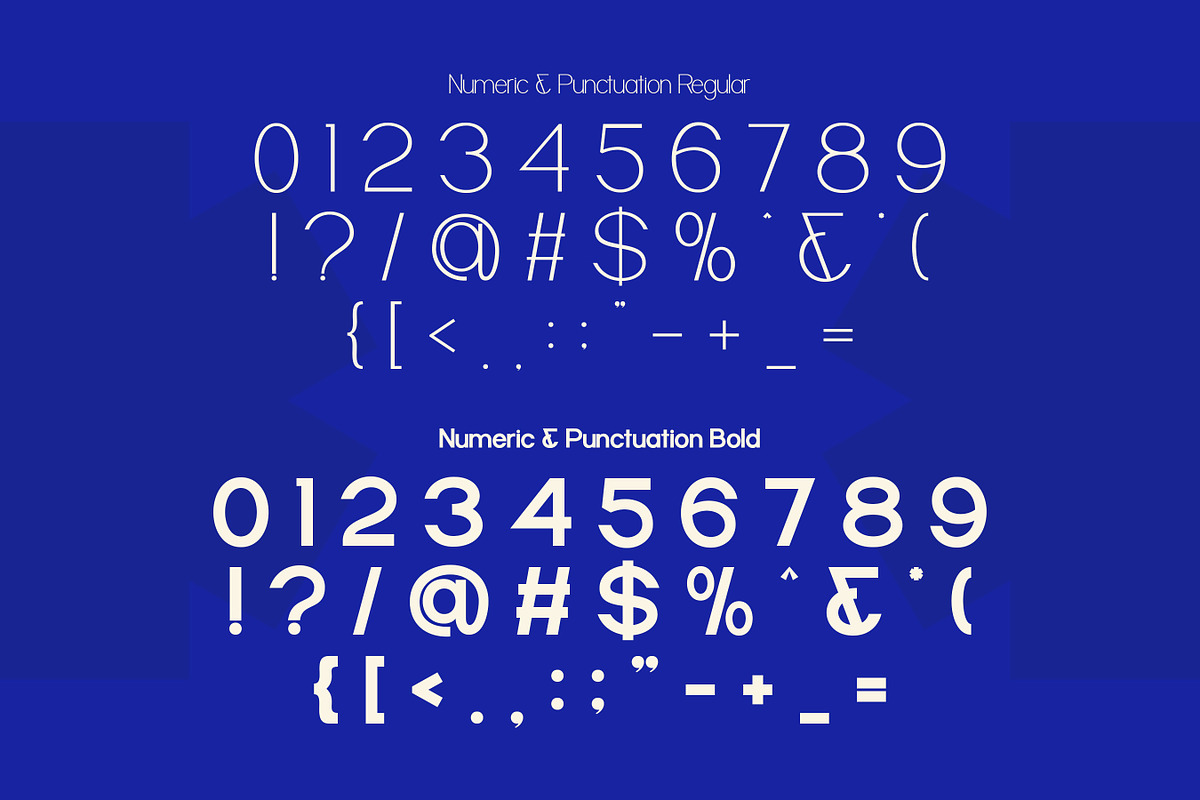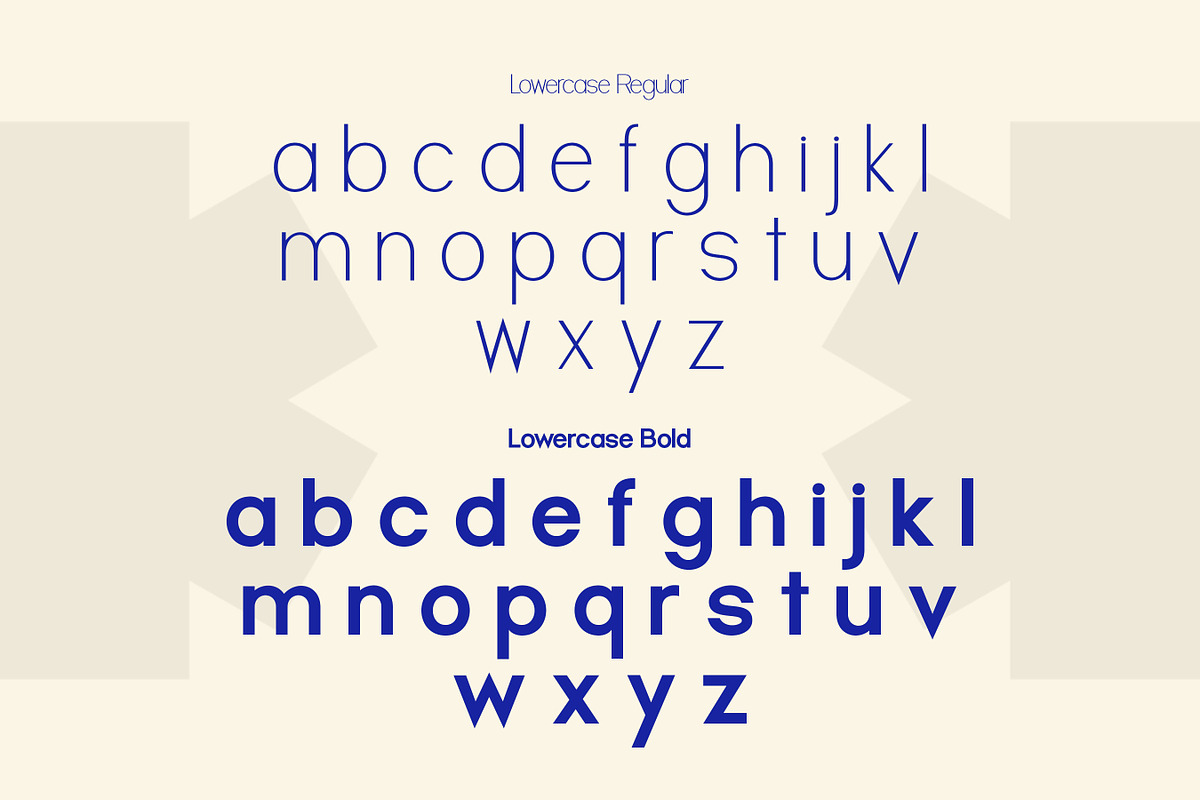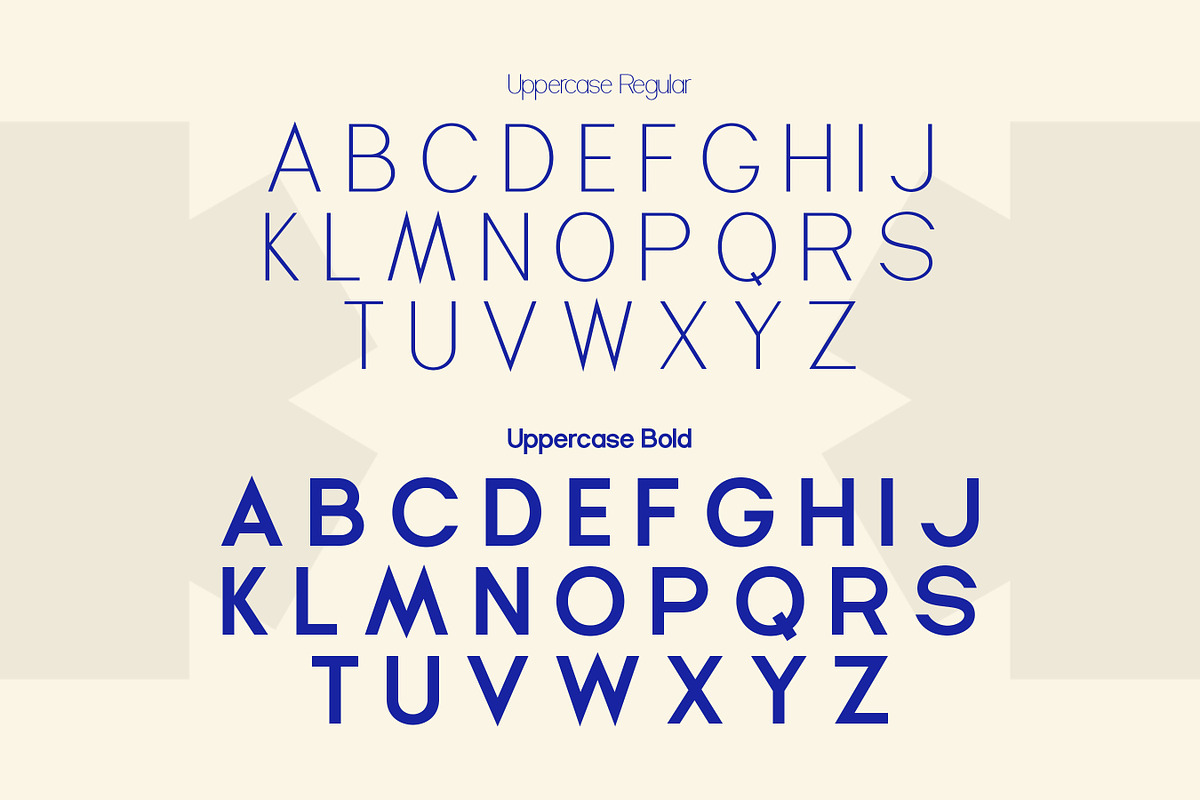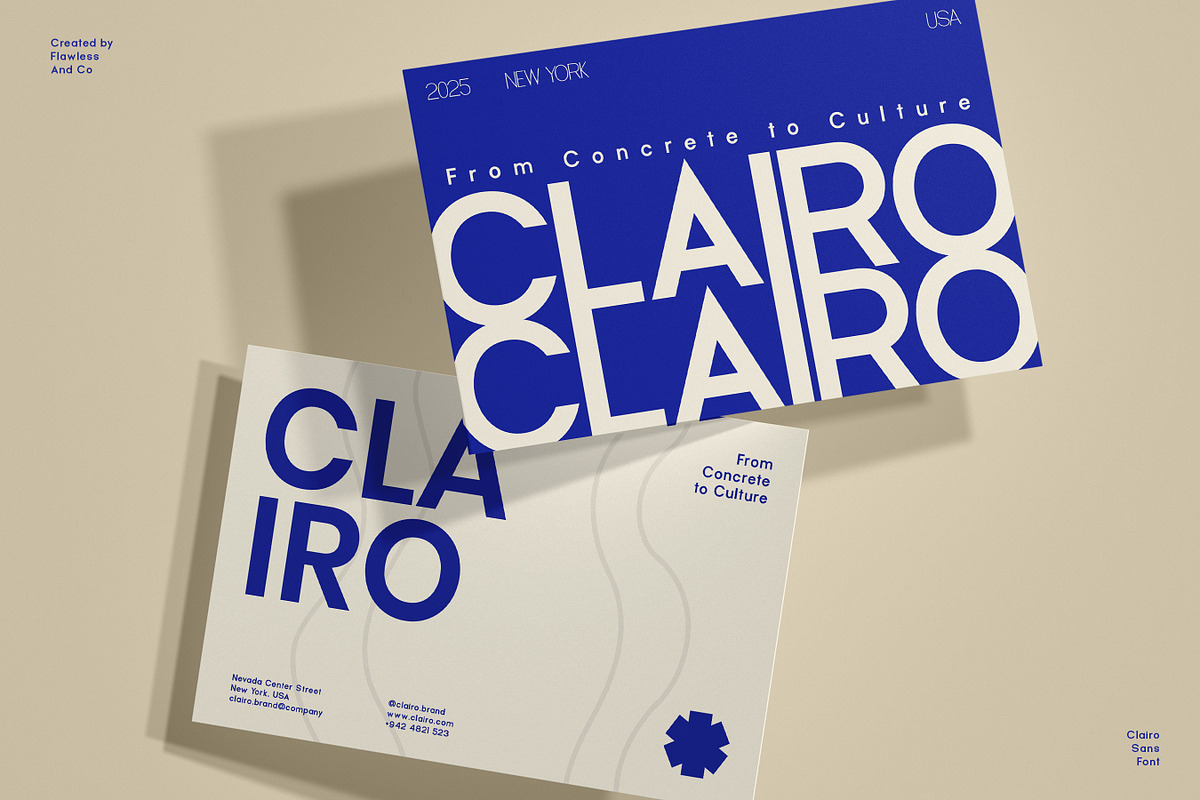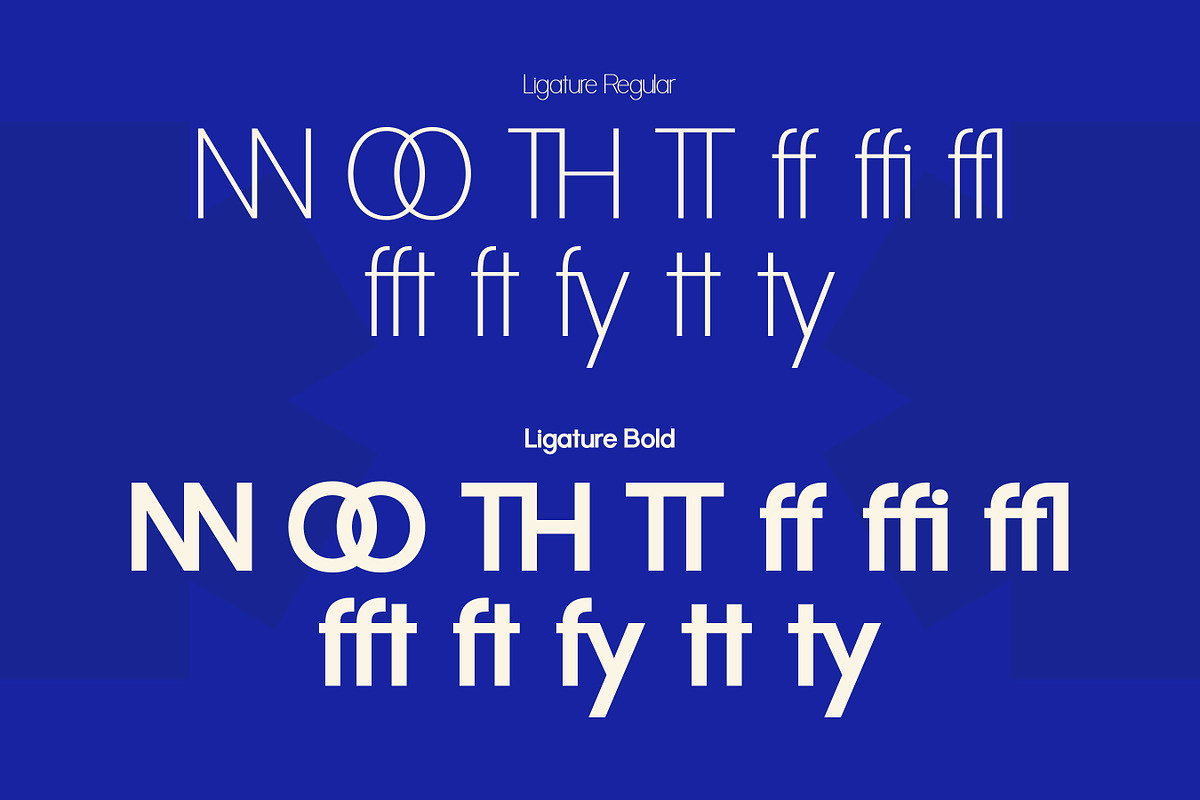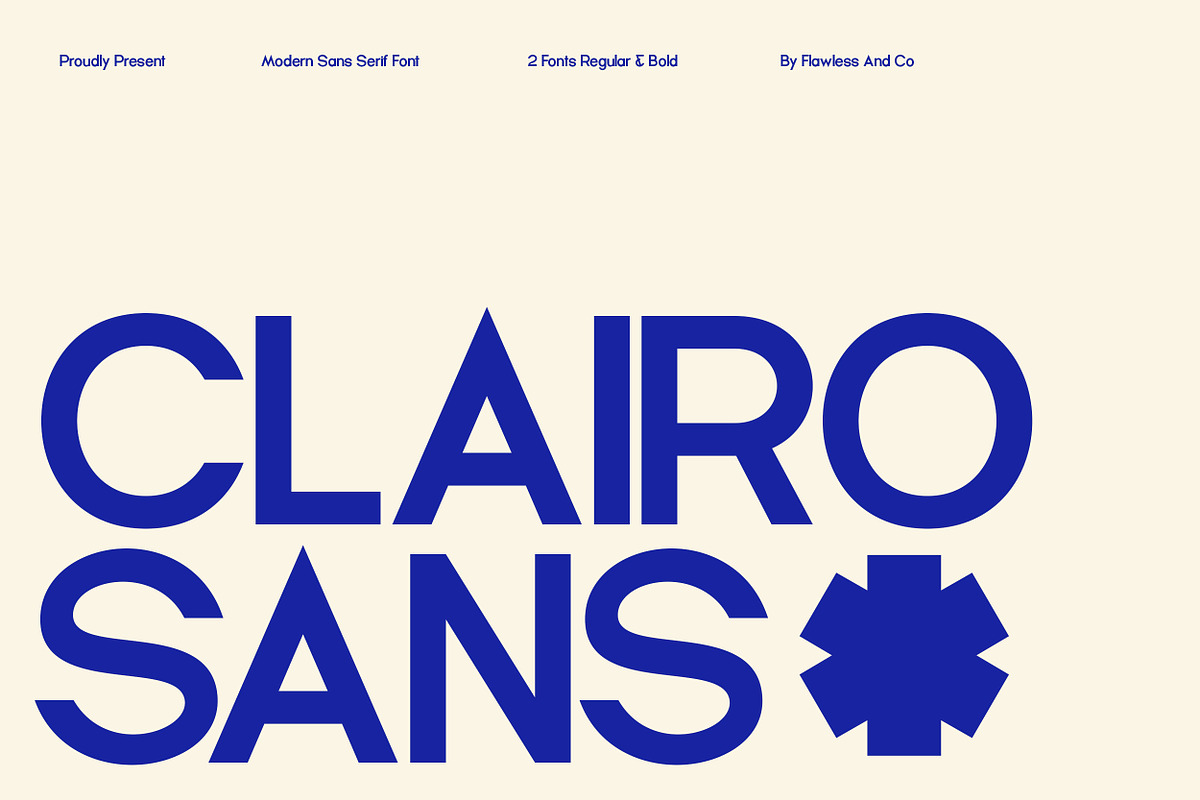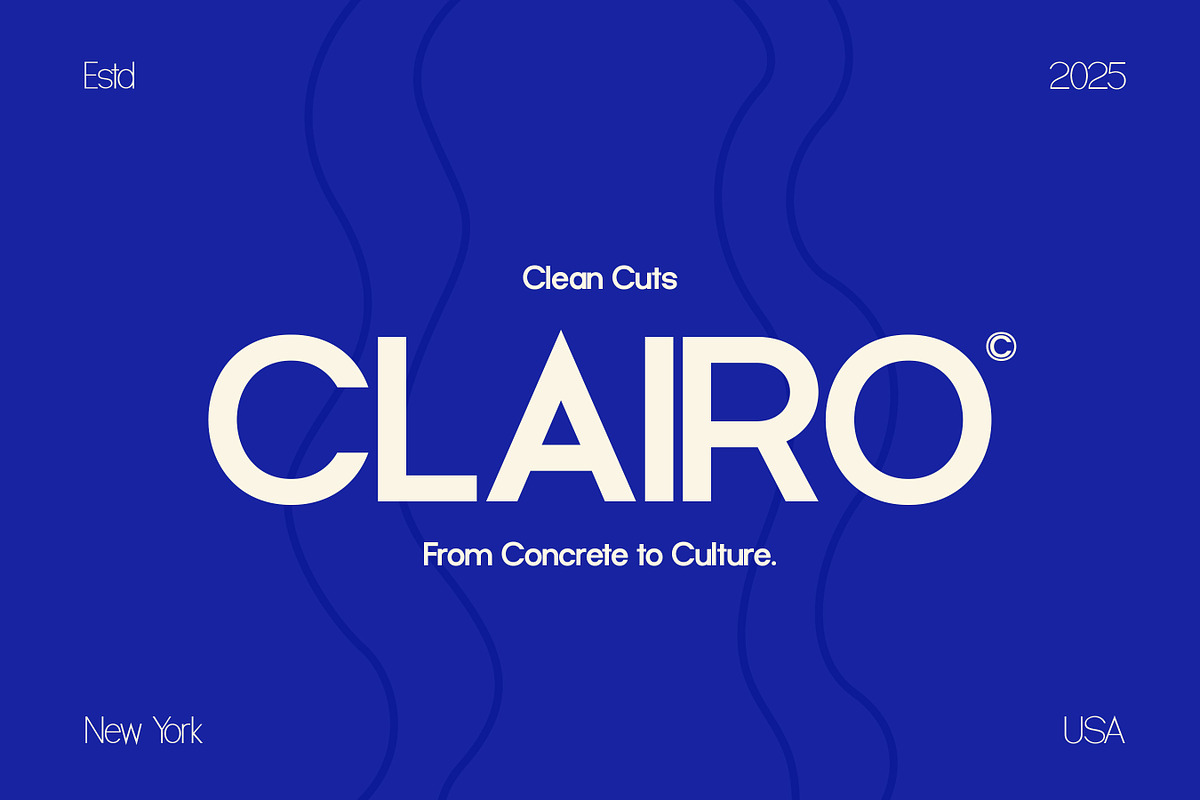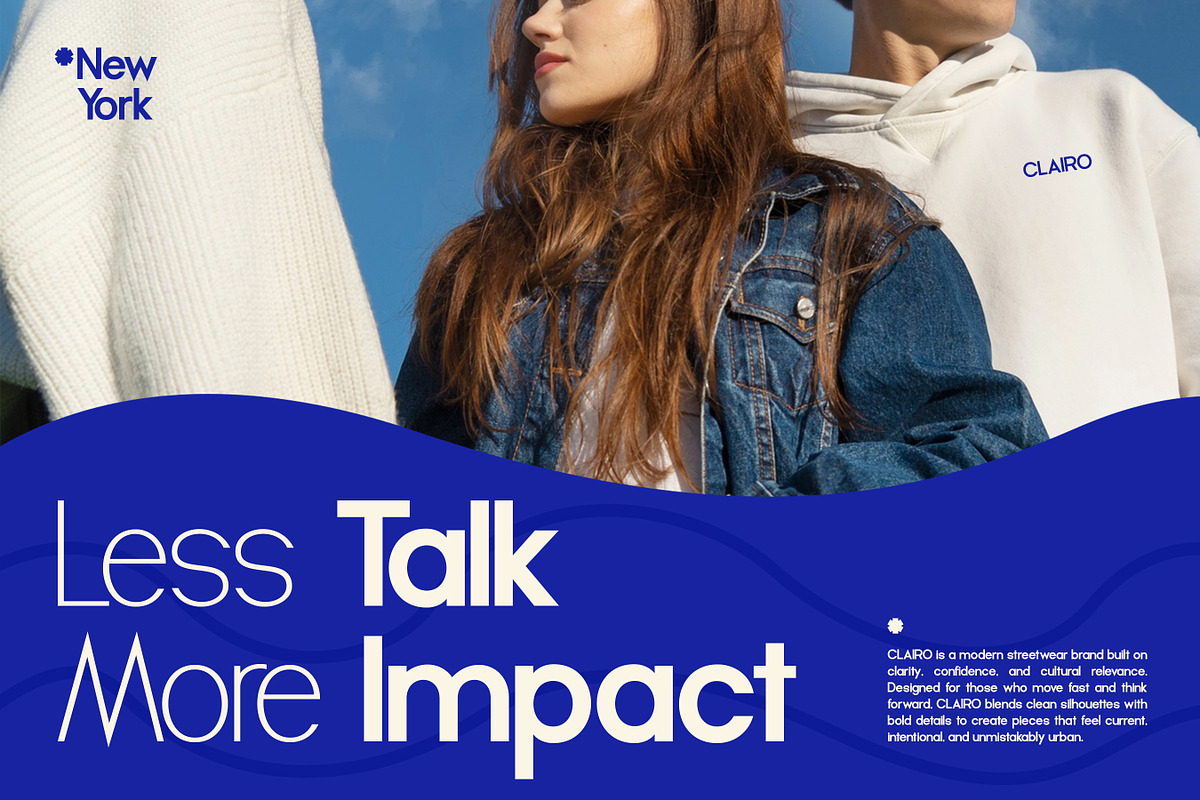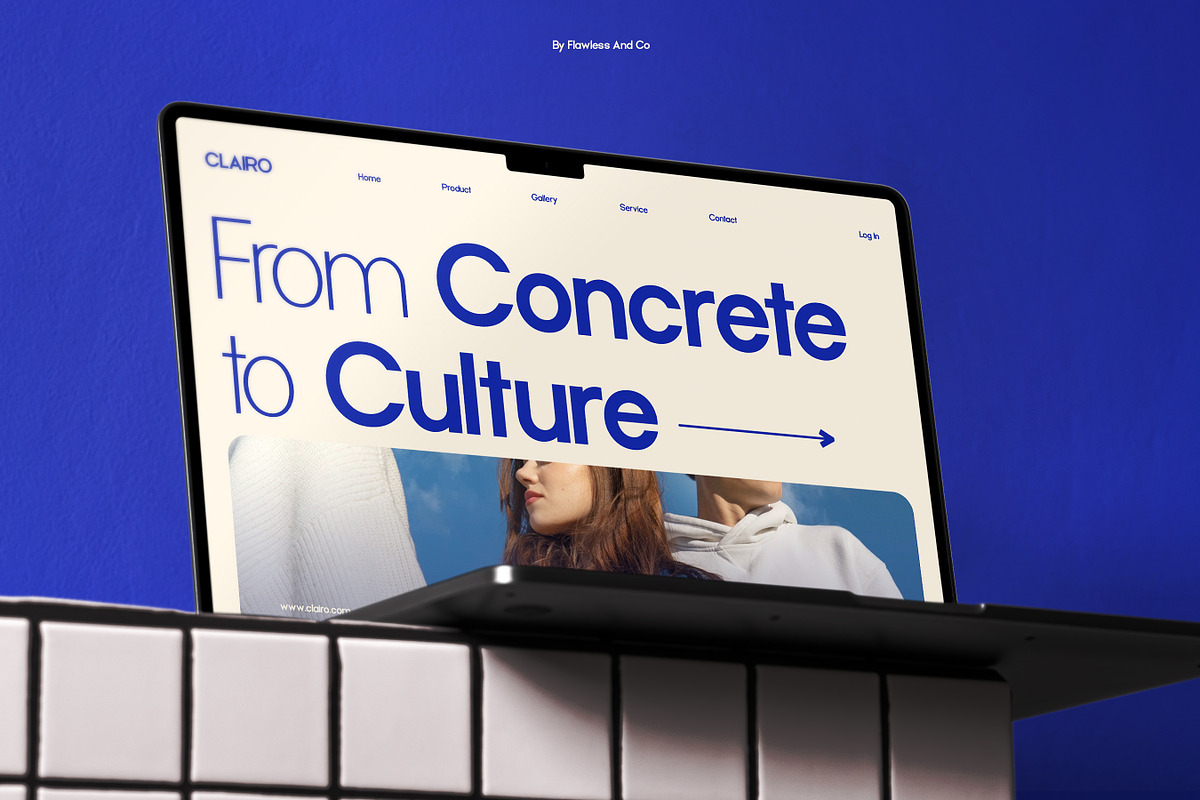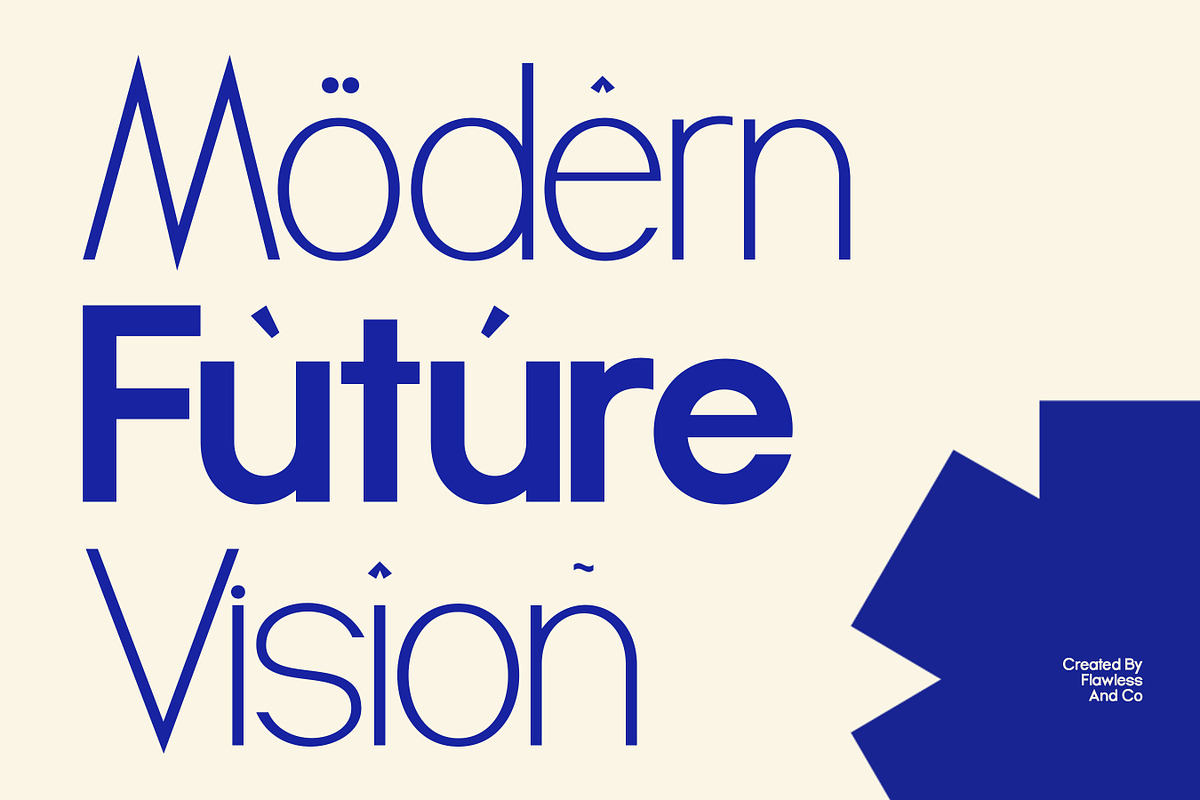
Clairo Sans
Clairo Sans is a clean and modern sans serif font designed to deliver clarity, balance, and versatility. With its bold structure and minimal aesthetic, Clairo Sans works perfectly for contemporary designs that require a strong yet approachable visual presence. It comes with Regular and Bold styles, making it flexible for various design needs.
Multilingual Uppercase alphabet A-Z Lowercase alphabet a-z Numbers 0-9 Some punctuationa Alternates & Ligatures